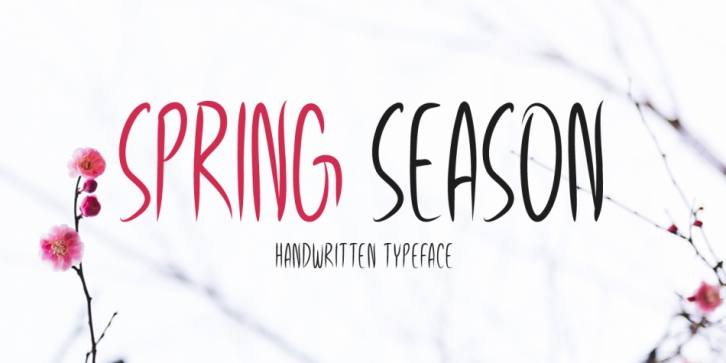
Designed by Md. Shohail Bhuiyan, Spring Season is a hand display and hand drawn font published by Seemly Fonts.
Spring Season is a brand new handwritten font. Spring Season is perfectly suited for stationery, logos, t-shirt, paper, print design, website header, photo frame, flyer, music cover, poster, image slider and much more.